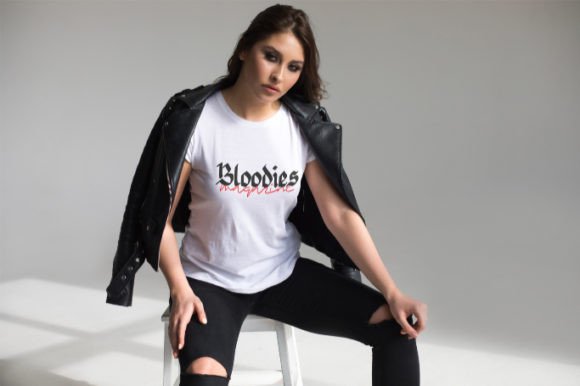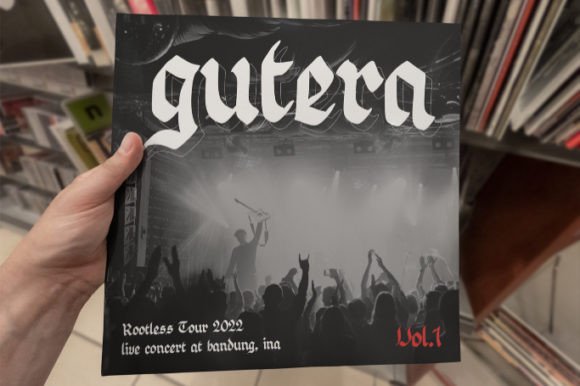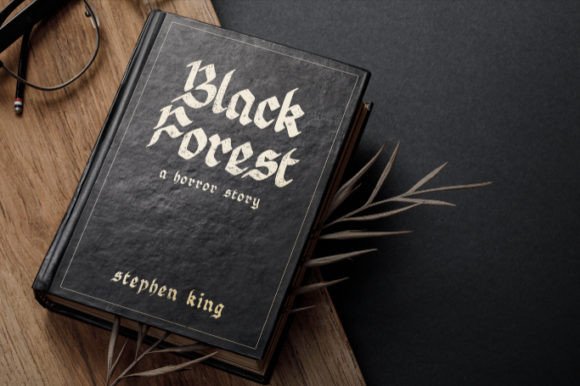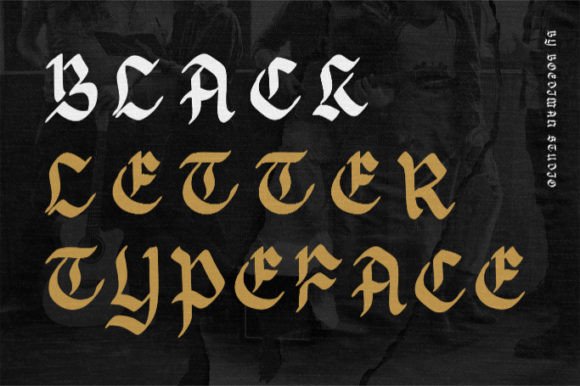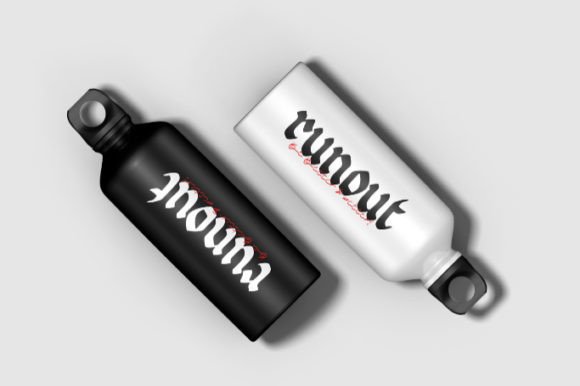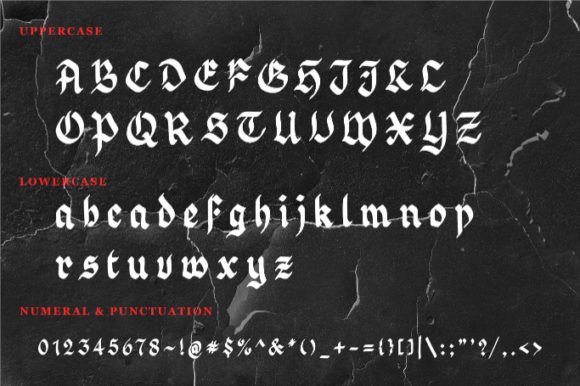
Gutera Font: Elevate Your Designs with Elegant Blackletter Style
Are you on the hunt for a font that exudes sophistication, elegance, and a touch of modernity? Look no further than Gutera Font, a stylish and modern blackletter font that’s sure to capture your heart. With its incredibly distinct and timeless style, Gutera is perfect for designers and crafters looking to add a unique flair to their favorite projects.
The Essence of Gutera Font
Gutera Font is a masterful blend of traditional blackletter style and modern sensibilities. Its elegant touch sets it apart from other fonts in the same category, making it an excellent choice for those seeking a sophisticated and refined aesthetic. Whether you’re working on a logo, branding materials, or creative projects, Gutera Font is sure to make a lasting impression.
Key Features of Gutera Font
- Stylish and Modern Design: Gutera Font boasts a sleek and contemporary design that’s perfect for designers and crafters who want to stay ahead of the curve.
- Elegant Touch: The font’s elegant touch adds a level of sophistication and refinement, making it ideal for high-end branding and creative projects.
- Distinct and Timeless Style: Gutera Font’s unique style is both timeless and trendy, ensuring that your designs will remain relevant for years to come.
- Versatility: This font is perfect for a wide range of projects, from logos and branding materials to posters, flyers, and more.
Why Choose Gutera Font?
With so many fonts available, why choose Gutera Font for your next project? Here are just a few compelling reasons:
- Stand Out from the Crowd: Gutera Font’s unique style ensures that your designs will stand out from the crowd and grab attention.
- Easy to Read: Despite its ornate design, Gutera Font is surprisingly easy to read, making it perfect for body text and headlines.
- Highly Versatile: This font can be used for both digital and print projects, making it a valuable addition to your font library.
- Supports Multiple Languages: Gutera Font supports multiple languages, ensuring that you can use it for projects that require non-English text.
Tips for Using Gutera Font
To get the most out of Gutera Font, here are a few tips to keep in mind:
- Pair with Neutral Fonts: Pair Gutera Font with neutral fonts to create a striking contrast and add visual interest to your designs.
- Experiment with Colors: Don’t be afraid to experiment with different colors and textures to add depth and dimension to your designs.
- Use for Headlines and Titles: Gutera Font is perfect for headlines and titles, where its elegant style can shine.
In conclusion, Gutera Font is a stylish and modern blackletter font that’s perfect for designers and crafters looking to elevate their designs. With its elegant touch, distinct style, and versatility, Gutera Font is sure to become a favorite in your font library. So why wait? Fall in love with Gutera Font and use it to create spectacular designs that will leave a lasting impression!